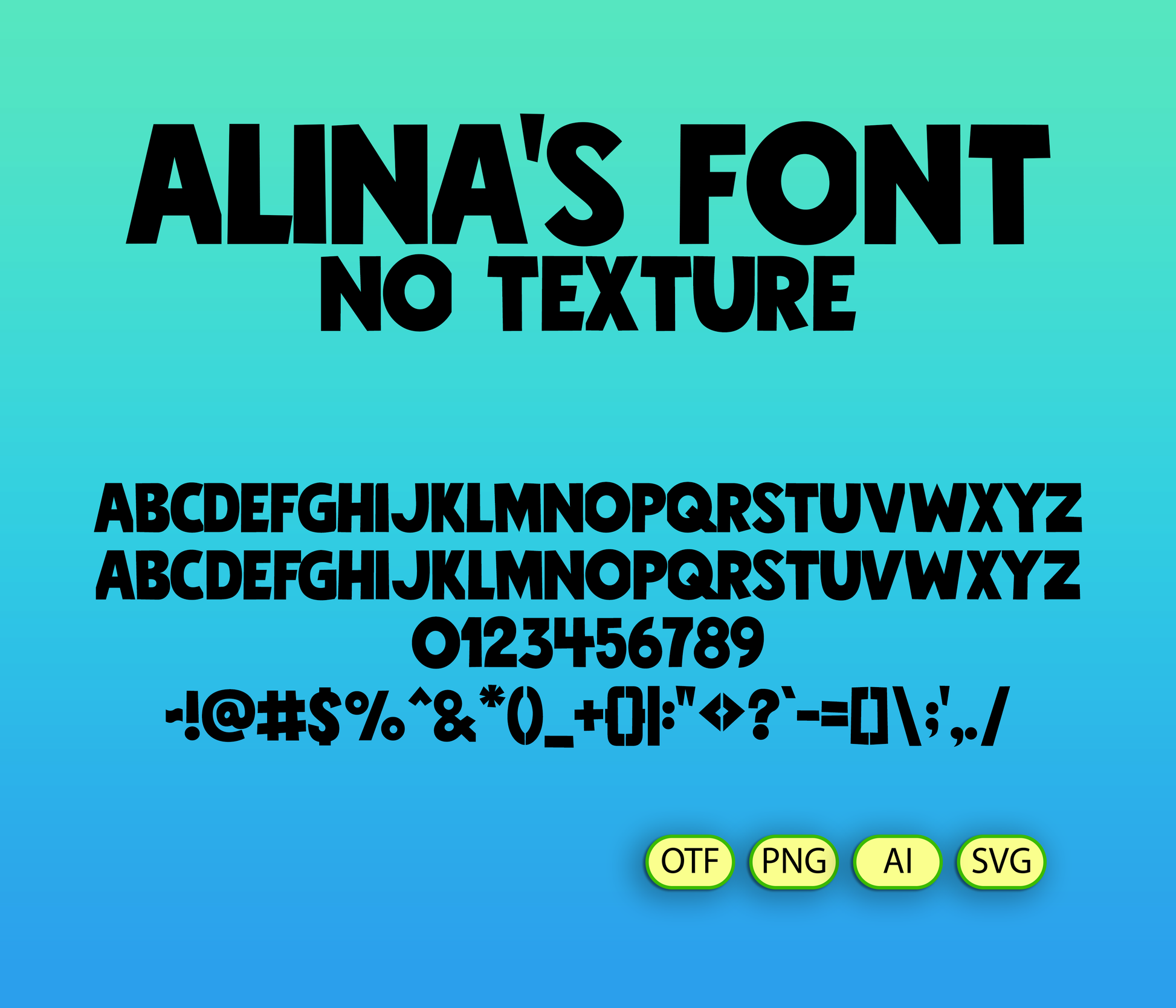
Cat Movie Font
Whisker Cat Movie Font: Bold and Expressive
Capture the humor and personality of everyone's favorite lasagna-loving cat with the Whisker Cat Movie font. This typeface reflects the playful and sarcastic spirit of a beloved cartoon cat, perfect for projects that require a touch of fun and attitude.
The Whisker Cat Movie font features chunky, bold letters that mirror the cat's round shape and expressive nature. Its prominent, cartoon-style characters make it ideal for grabbing attention and adding a lively element to any design.
- Promotional Materials: Perfect for creating eye-catching ads, banners, and posters for themed events.
- Merchandise Design: Ideal for designing vibrant t-shirts, mugs, and other items that fans will love.
- Digital Content: Enhance websites, blogs, and social media posts with a playful and engaging font.
- Children's Projects: Use in books, educational materials, and craft projects to capture children's attention.
- Personal Projects: Add a fun touch to invitations, scrapbooks, and personalized gifts.
Bring the Fun to Life The Chunky Cat Movie font not only pays homage to a beloved character but also empowers you to bring a touch of its humor and charisma to your designs. With its bold style and flexible application, this font allows you to communicate with the playful spirit and lively attitude that define the character. Ready to add some fun to your creative projects? Let this font help you capture the essence of the lasagna-loving cat in every design.